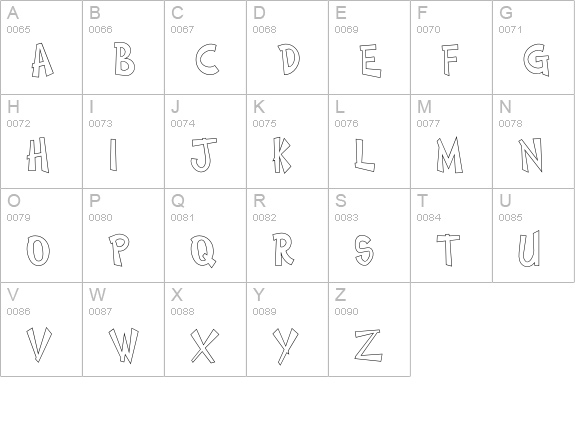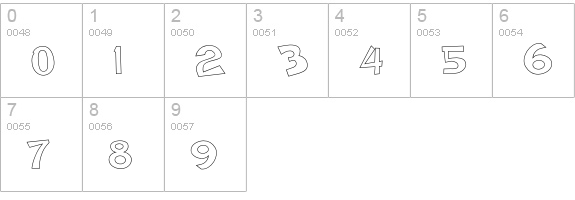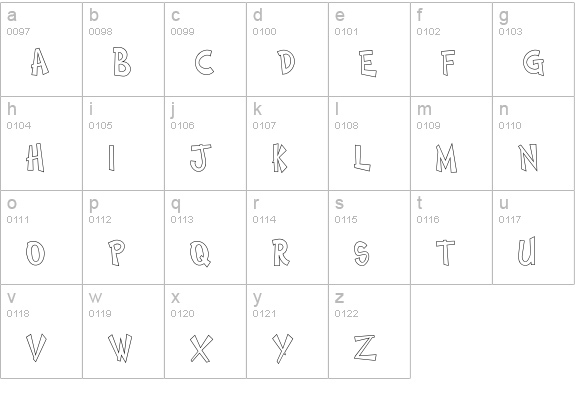
ComicBookTwoOutline Font Details
ComicBookTwoOutline font is a playful and whimsical typeface that is perfect for adding a fun and dynamic touch to your comic book projects. With its bold outlines and exaggerated shapes, this font truly captures the essence of classic comic book lettering. Whether you're creating a superhero comic or a light-hearted graphic novel, ComicBookTwoOutline font will bring your words to life with its energetic and expressive style. Best of all, this font is available for free download at FontsMarket.com, making it easily accessible for all your creative endeavors. Let ComicBookTwoOutline font be the perfect addition to your comic book arsenal and watch your designs pop with personality and charm.